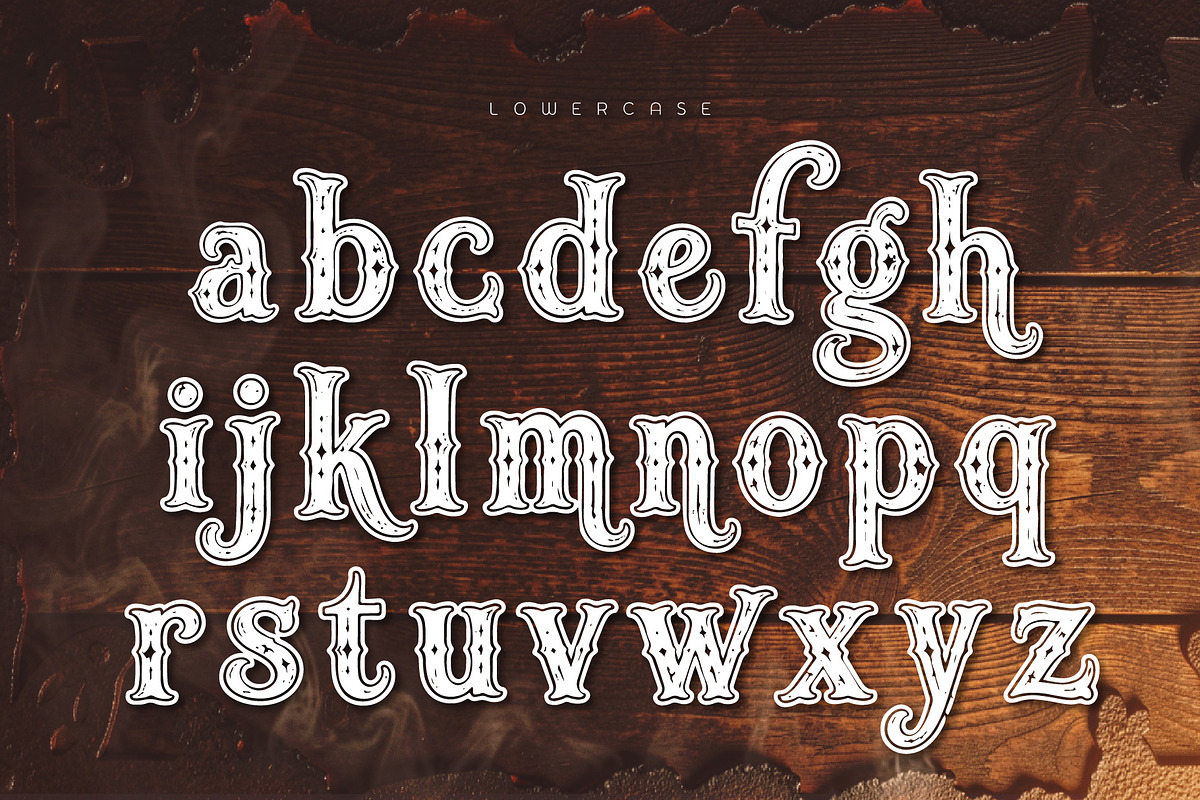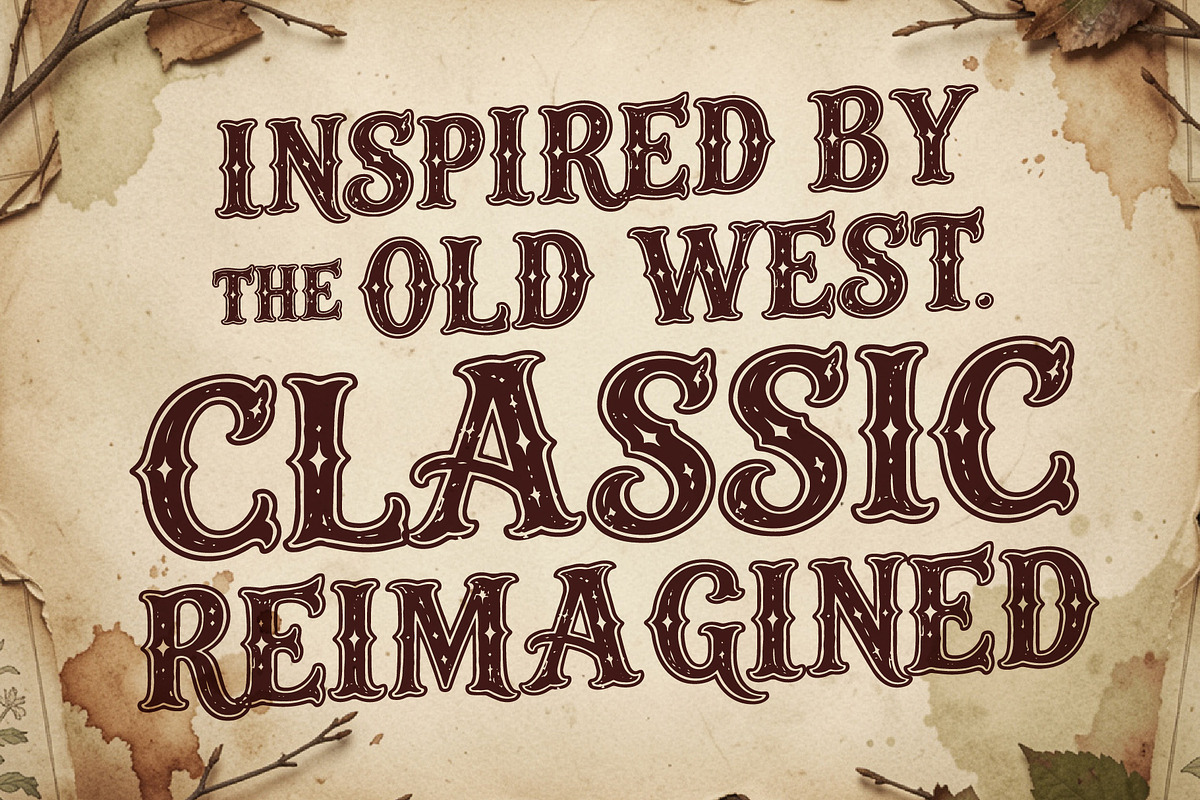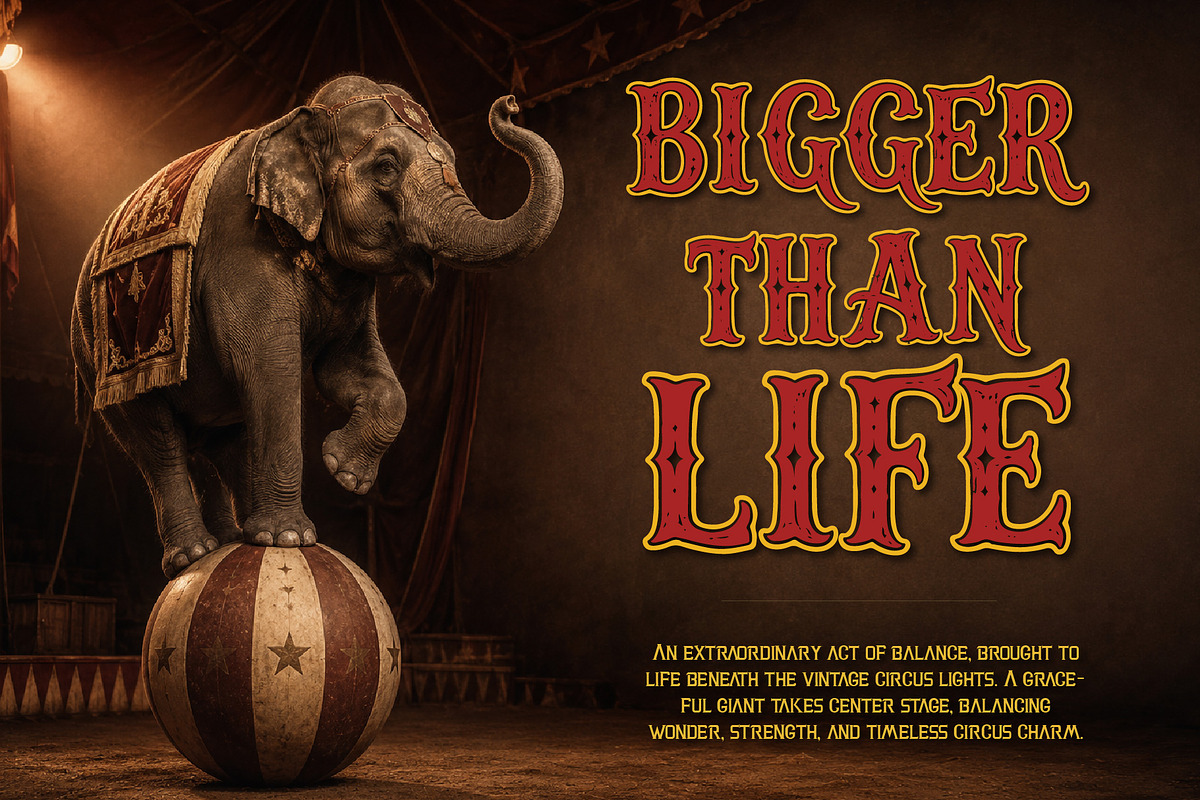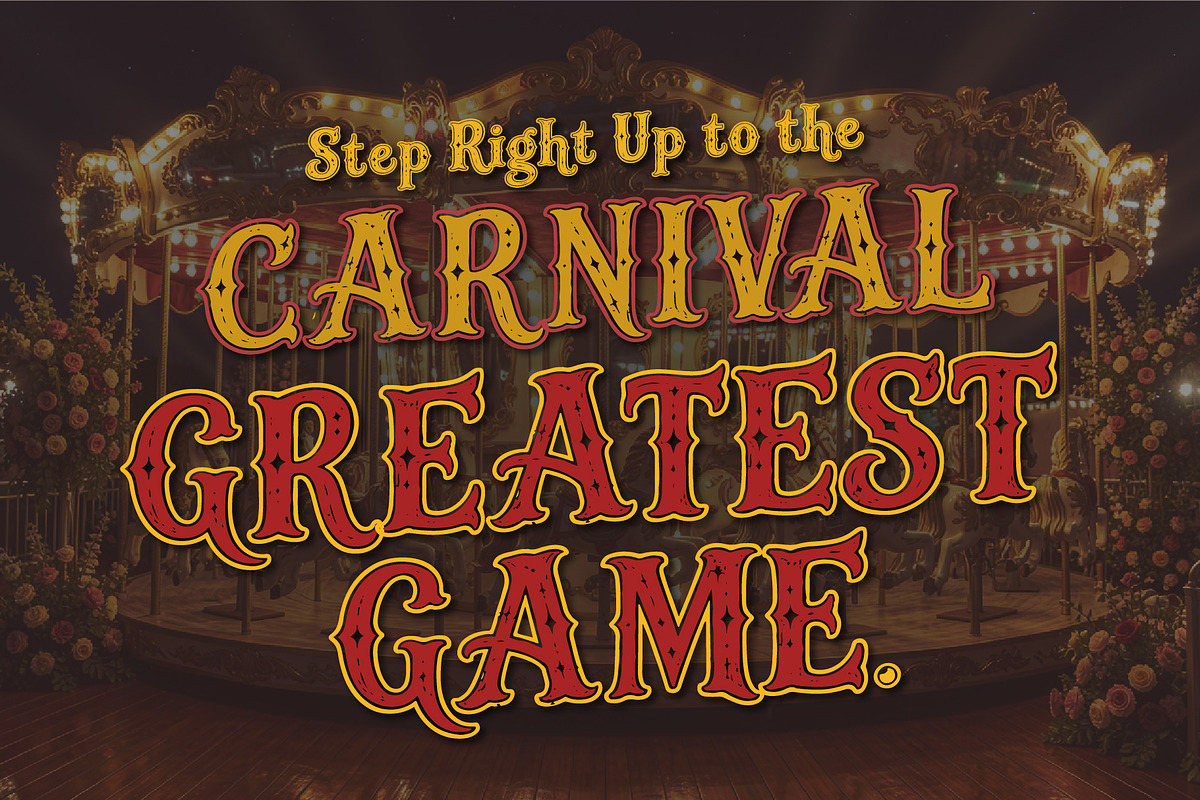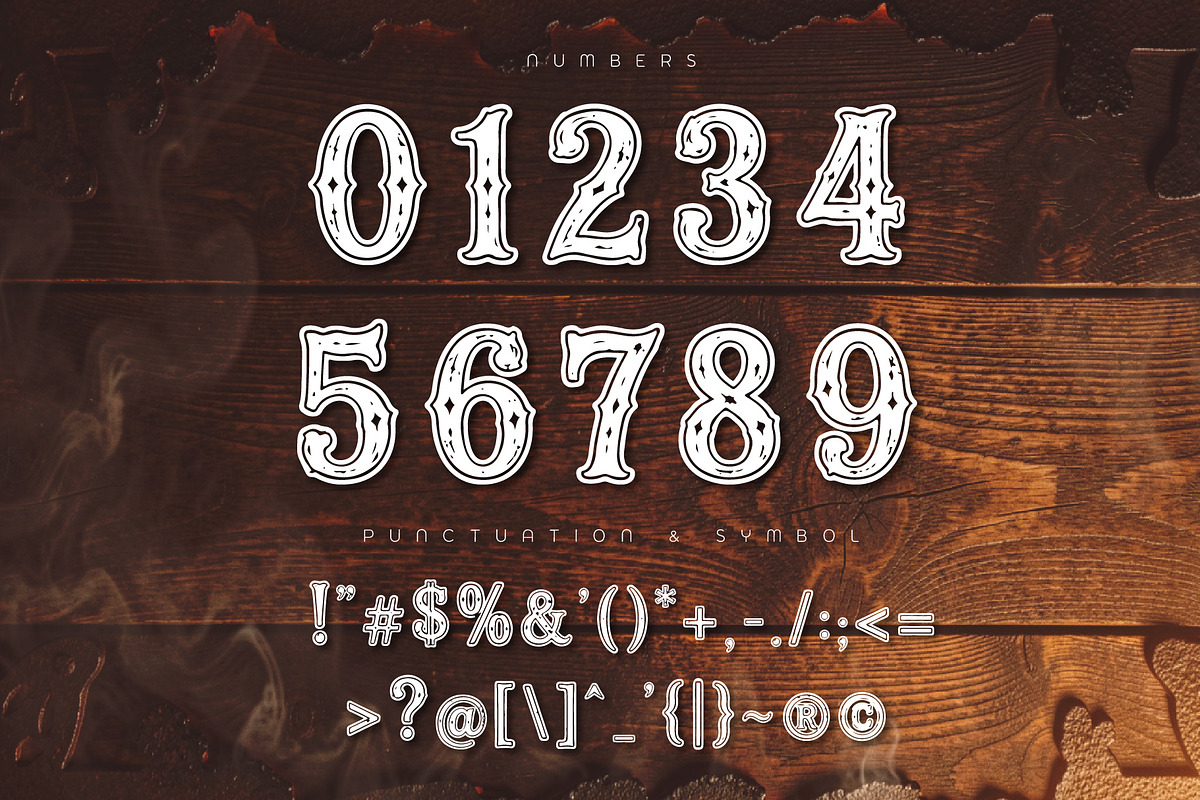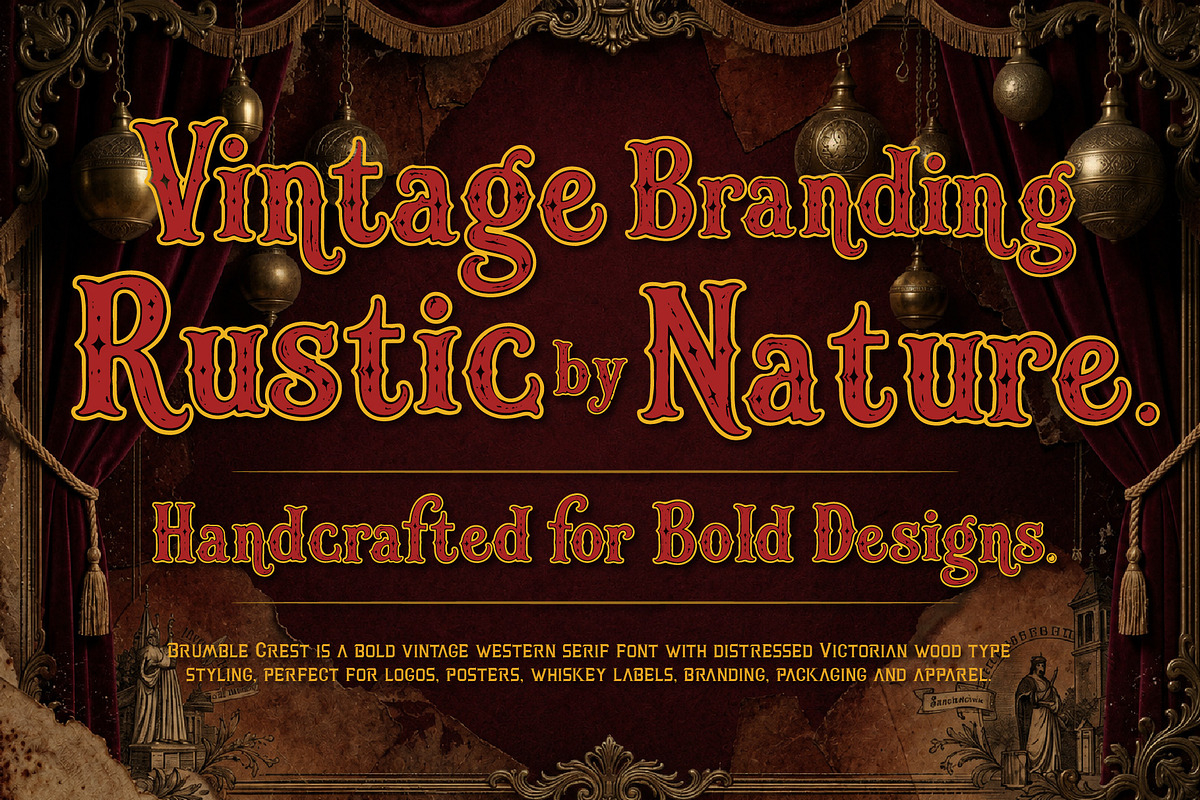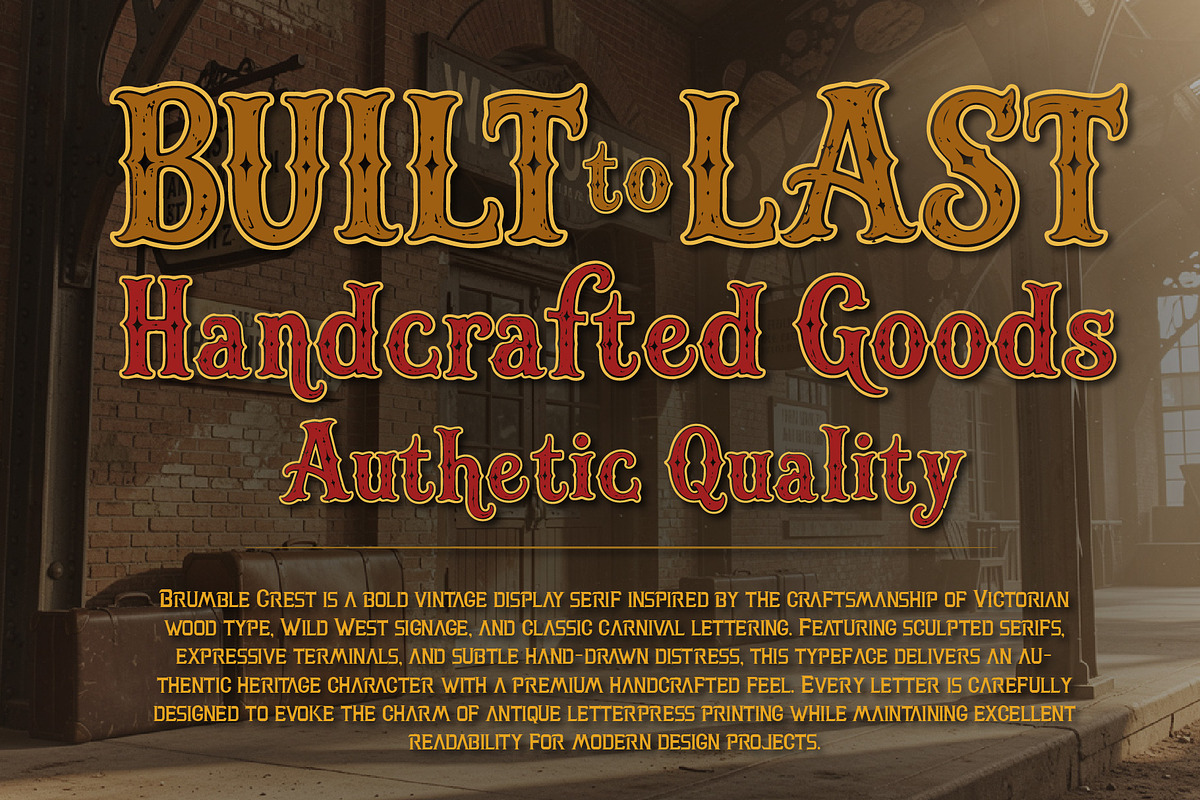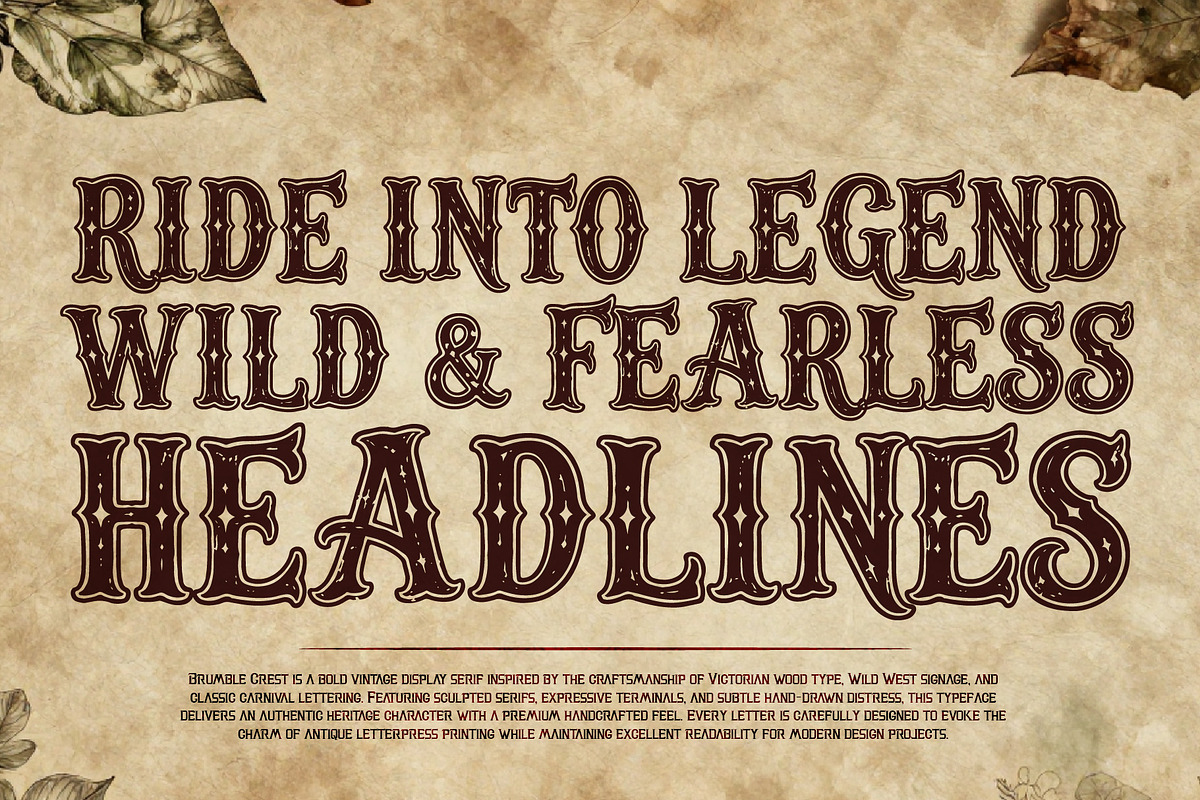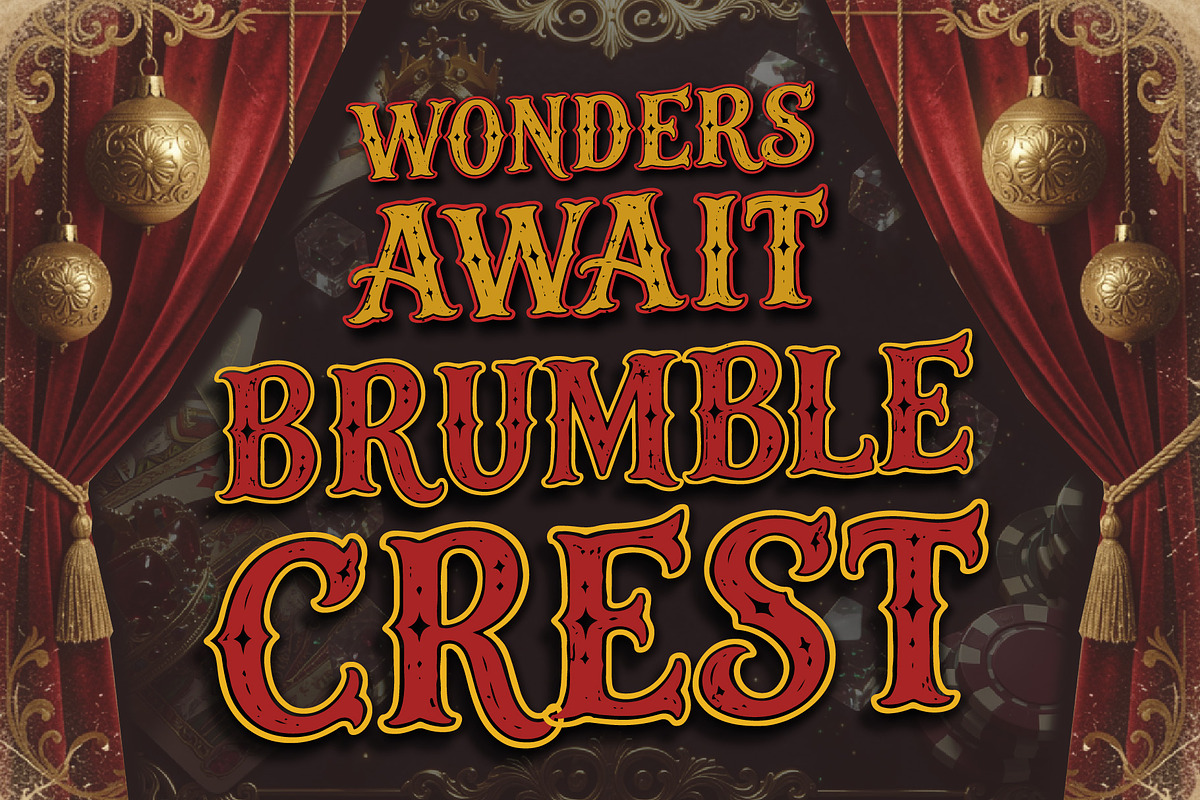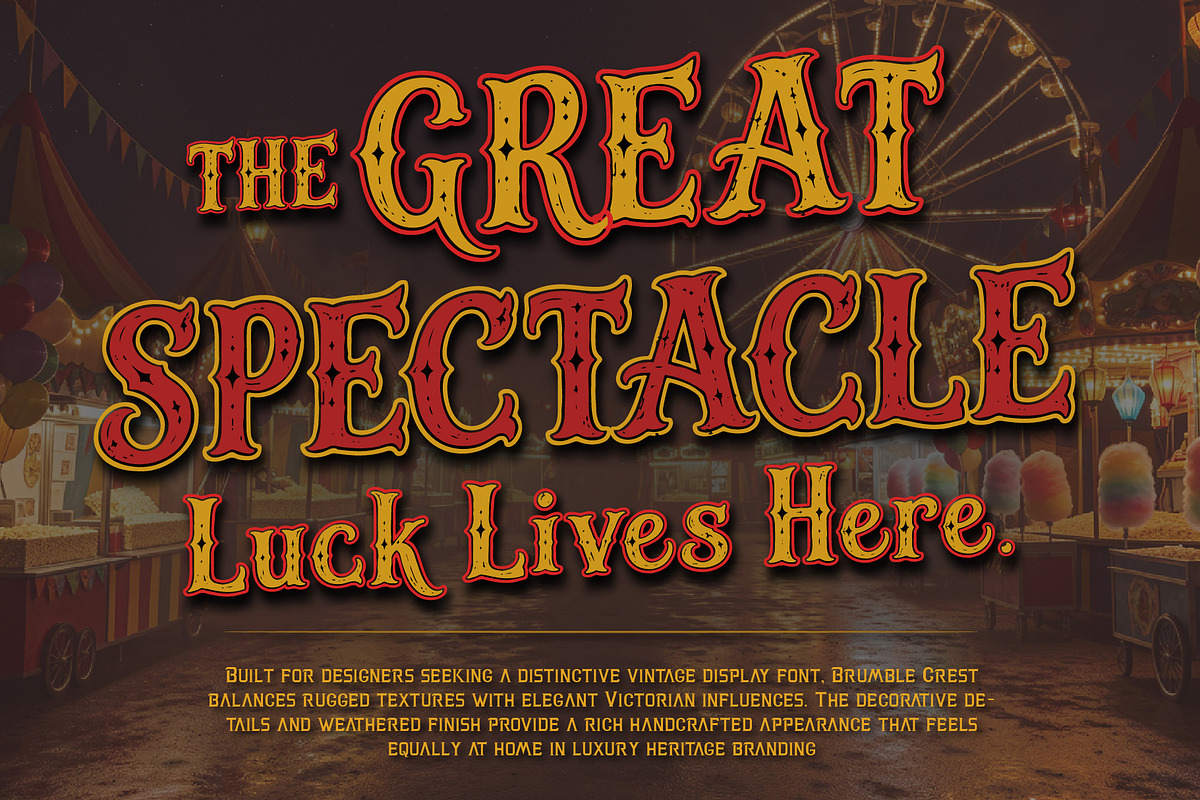
Brumble Crest - Carnival Wonders
Rumble Crest is a bold vintage display serif inspired by classic carnival lettering, Victorian wood type, and Wild West signage. Featuring sculpted serifs, expressive terminals, and subtle hand-drawn distress, it captures the charm of antique letterpress with a handcrafted heritage feel. Perfect for vintage carnival posters, circus graphics, branding, packaging, whiskey labels, western apparel, music festivals, and editorial design, Brumble Crest brings timeless character and unforgettable personality to every project.
Designed for creatives who love authentic vintage aesthetics, Brumble Crest combines rugged wood type textures with elegant Victorian influences. Its handcrafted details make it ideal for heritage branding, classic carnival and circus artwork, rodeo graphics, boutique packaging, haunted attractions, and nostalgic editorial designs.